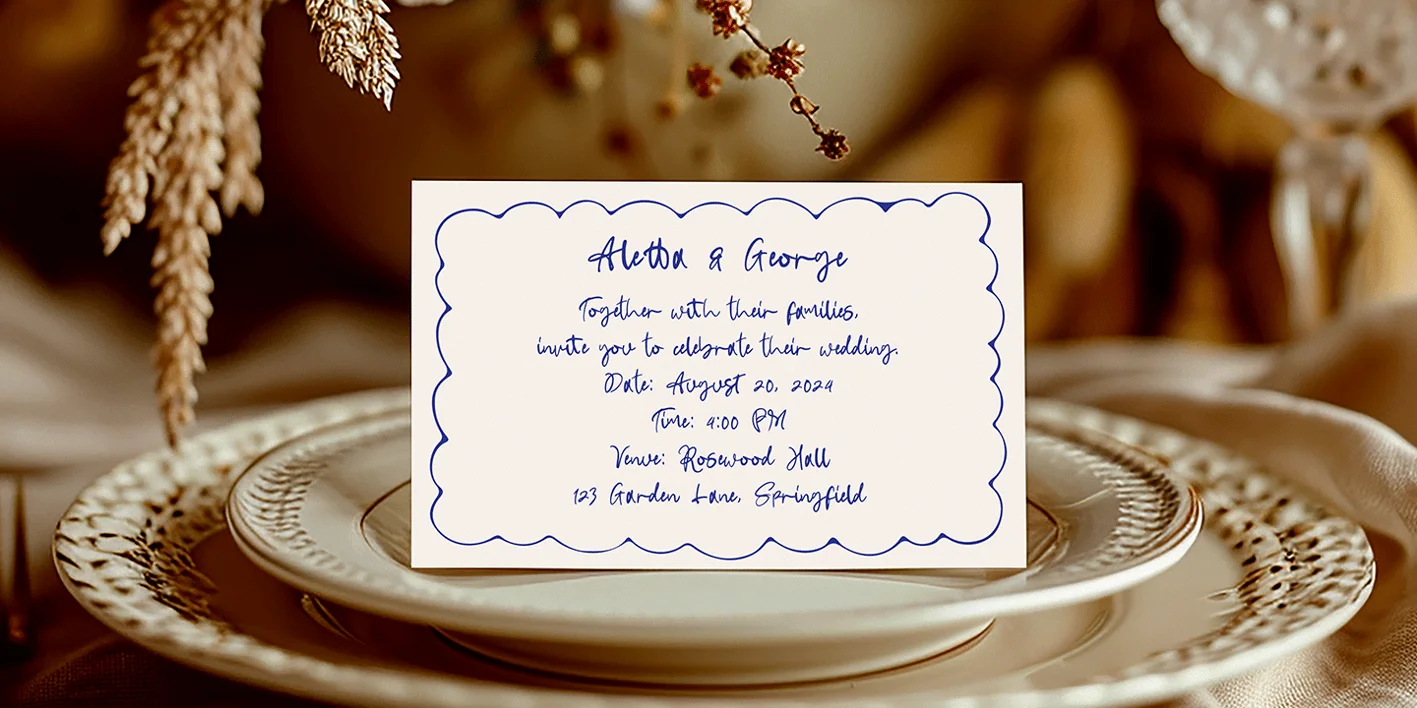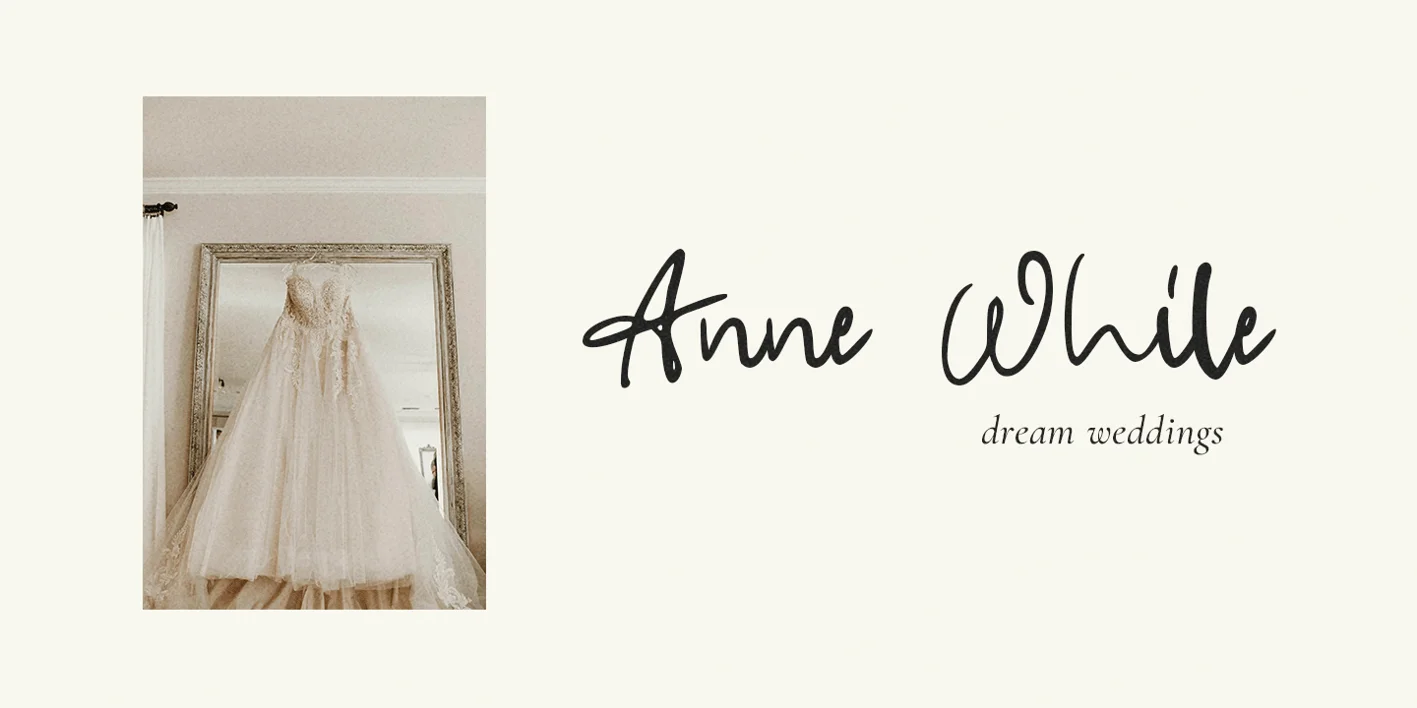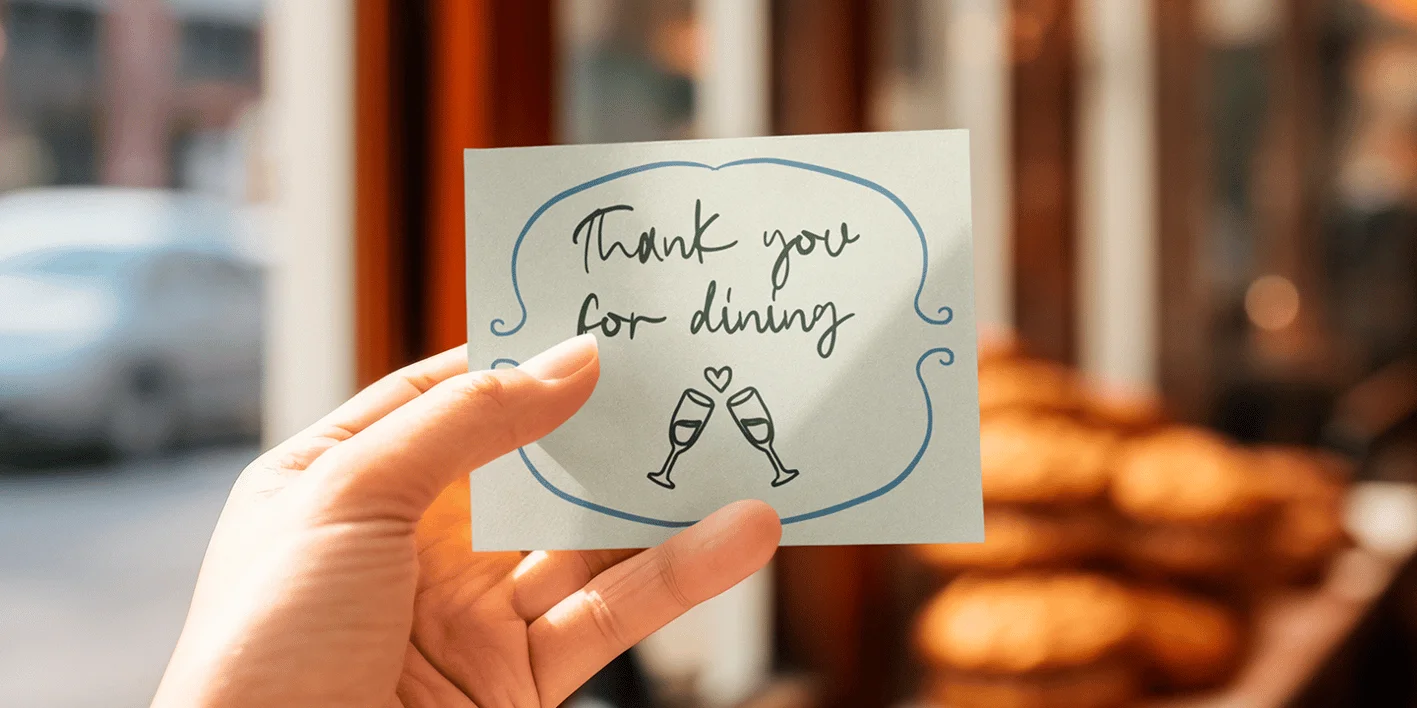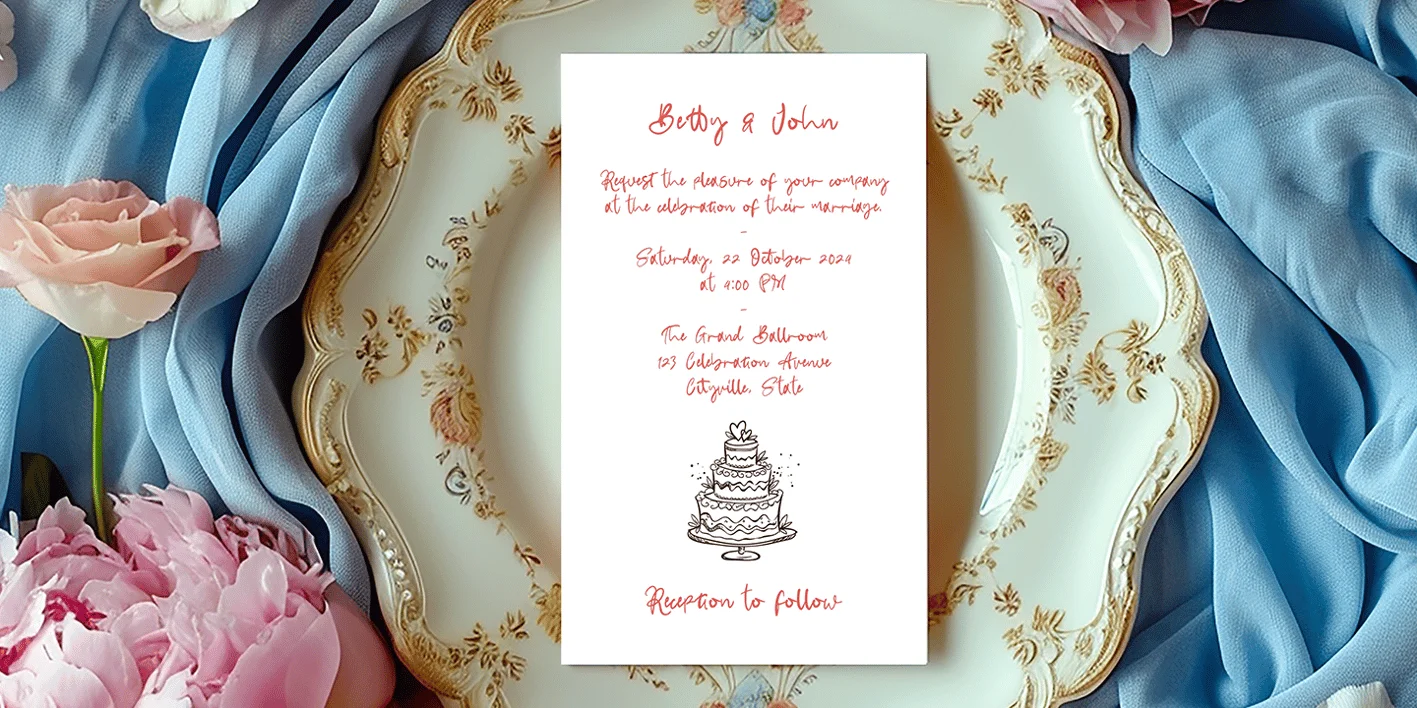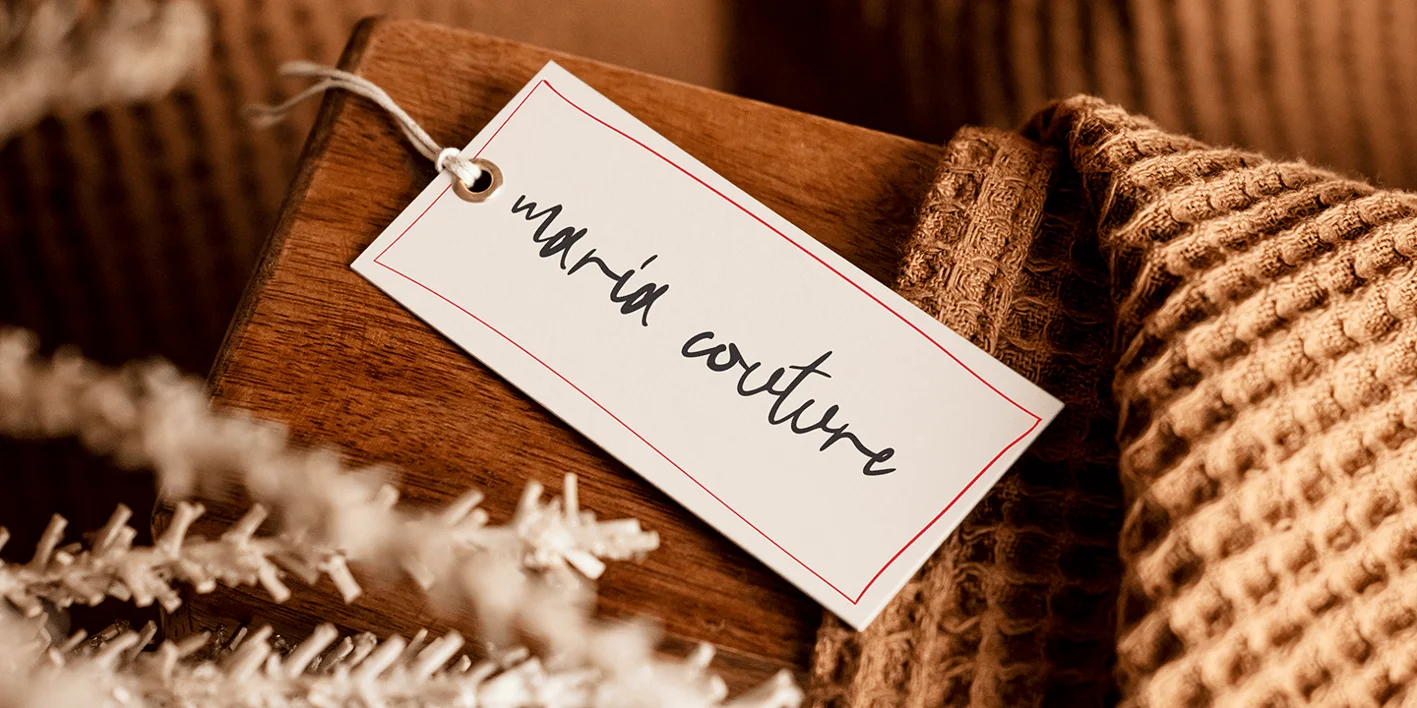
Bailett Hand Font
Few typefaces manage to balance strong typographic hierarchy support with genuine day-to-day practicality. Bailett Hand is one of them. The typeface brings a warm, personal sensibility to a broad range of creative disciplines, with distinctive character without sacrificing readability that holds up whether the work is print-first or screen-first.
In practice, Bailett Hand proves particularly effective for editorial layouts, brand identity systems, gift packaging, craft labels, thank-you cards. Designers reaching for it find that the type decisions feel resolved rather than laboured — a useful quality when client timelines are tight.
The range of applications extends to personal stationery, advertising campaigns, signage systems, web design. That breadth is deliberate: the proportions and spacing were stress-tested across a wide range of mock briefs before the typeface was finalised.
The pen angle is consistent throughout, suggesting a single author rather than a composite of assembled letterforms. Slight irregularities in stroke width at entry and exit points reproduce the acceleration and deceleration of a real writing instrument.
Motion designers building title sequences and lower thirds find Bailett Hand a reliable choice for projects that demand both personality and restraint. The design avoids the self-conscious quirkiness that dates quickly, settling instead for considered distinctiveness that holds up over time.